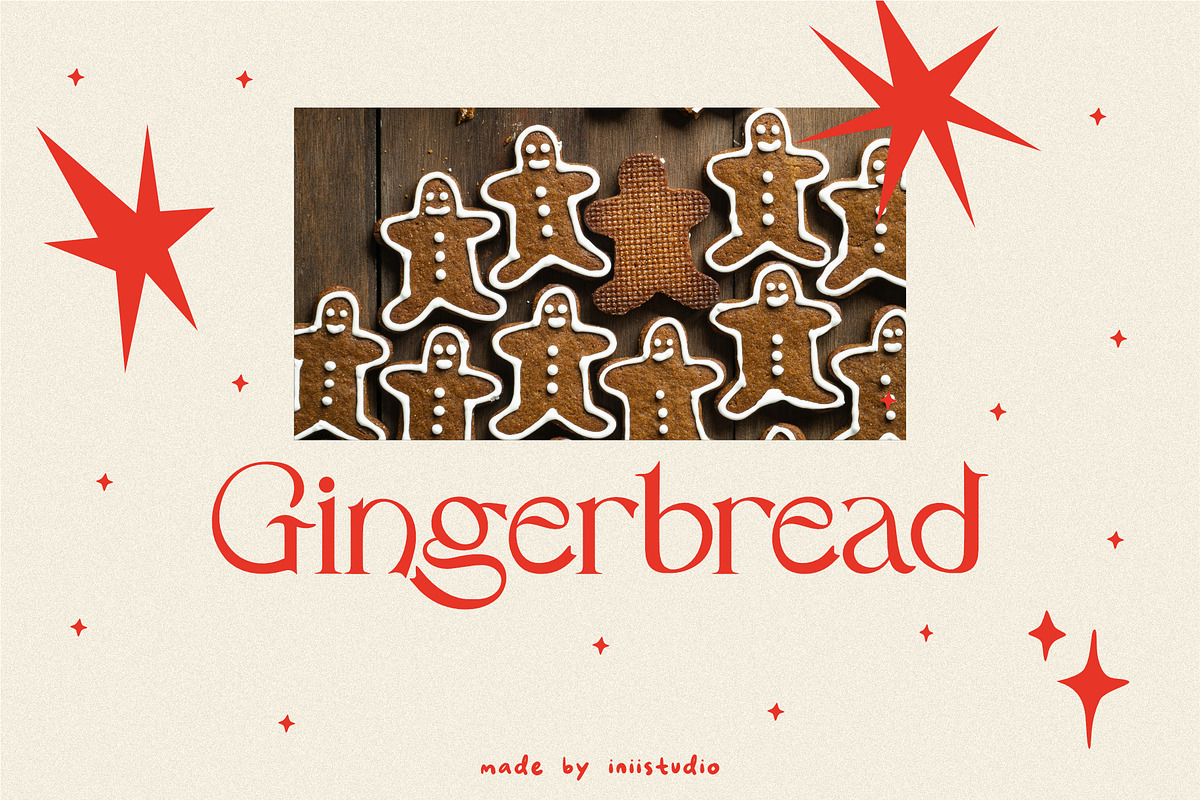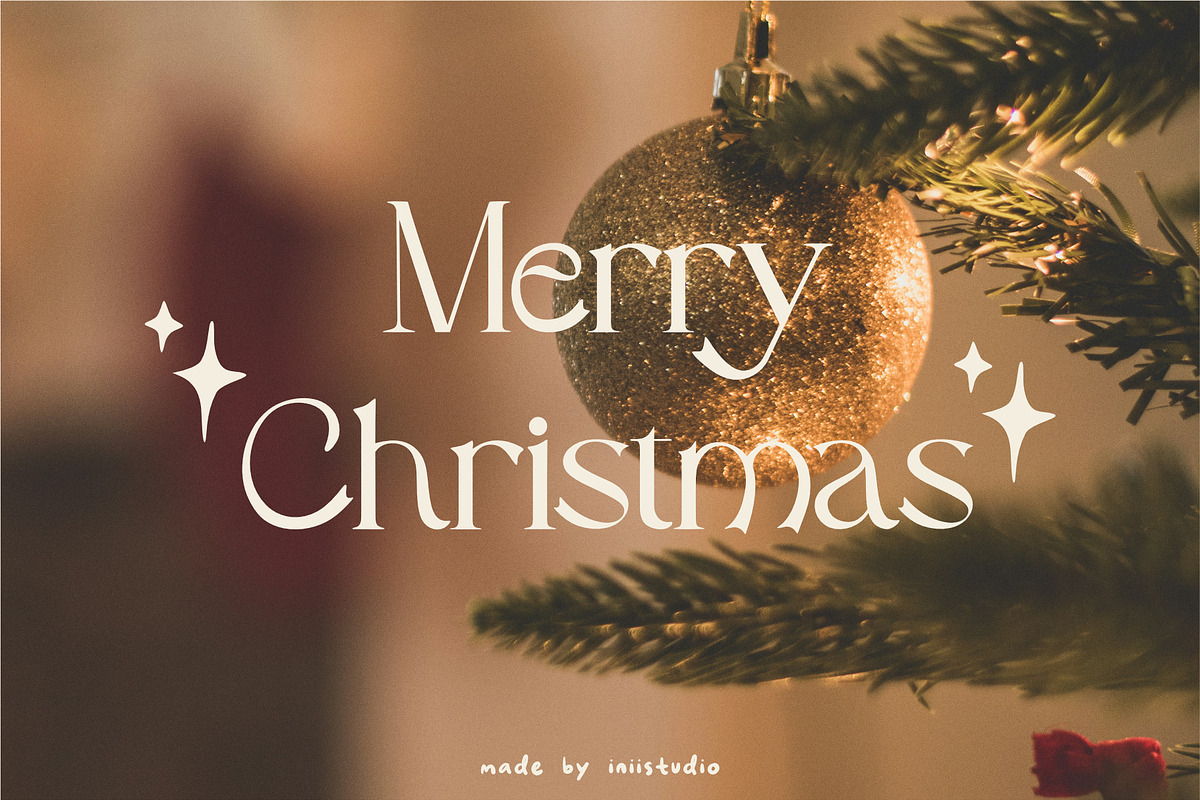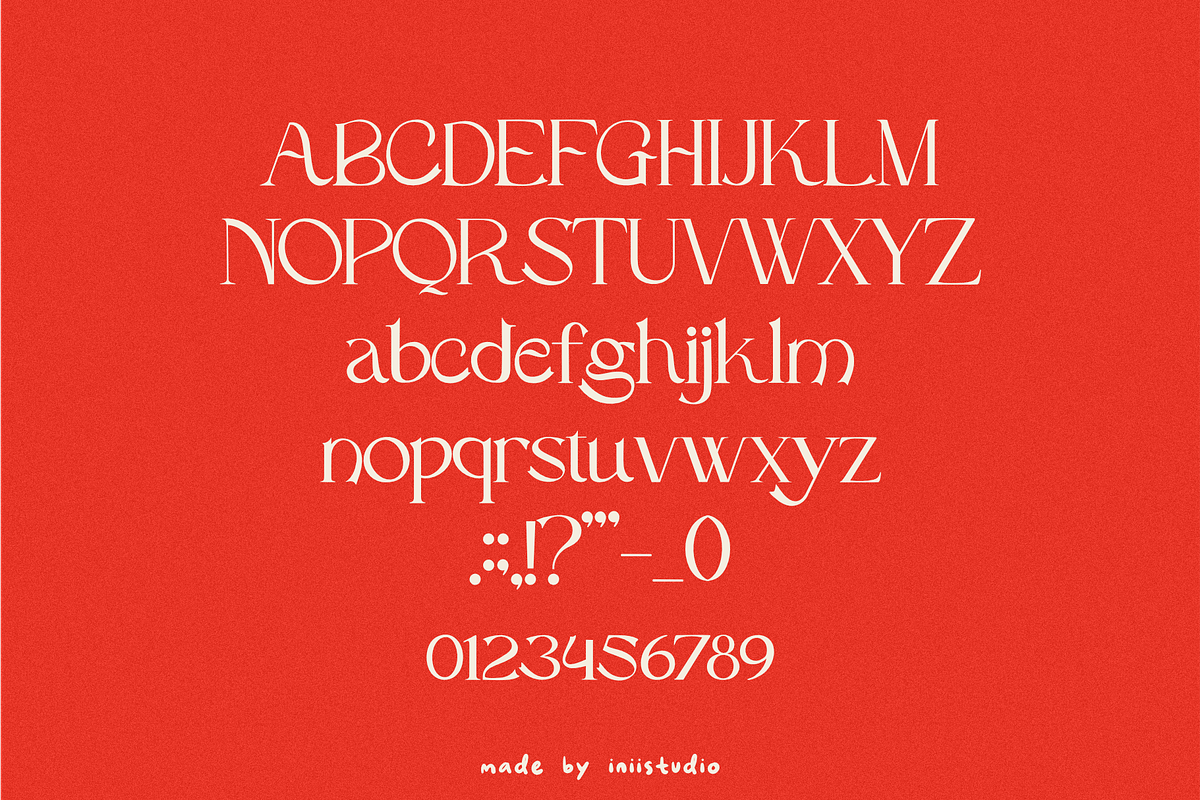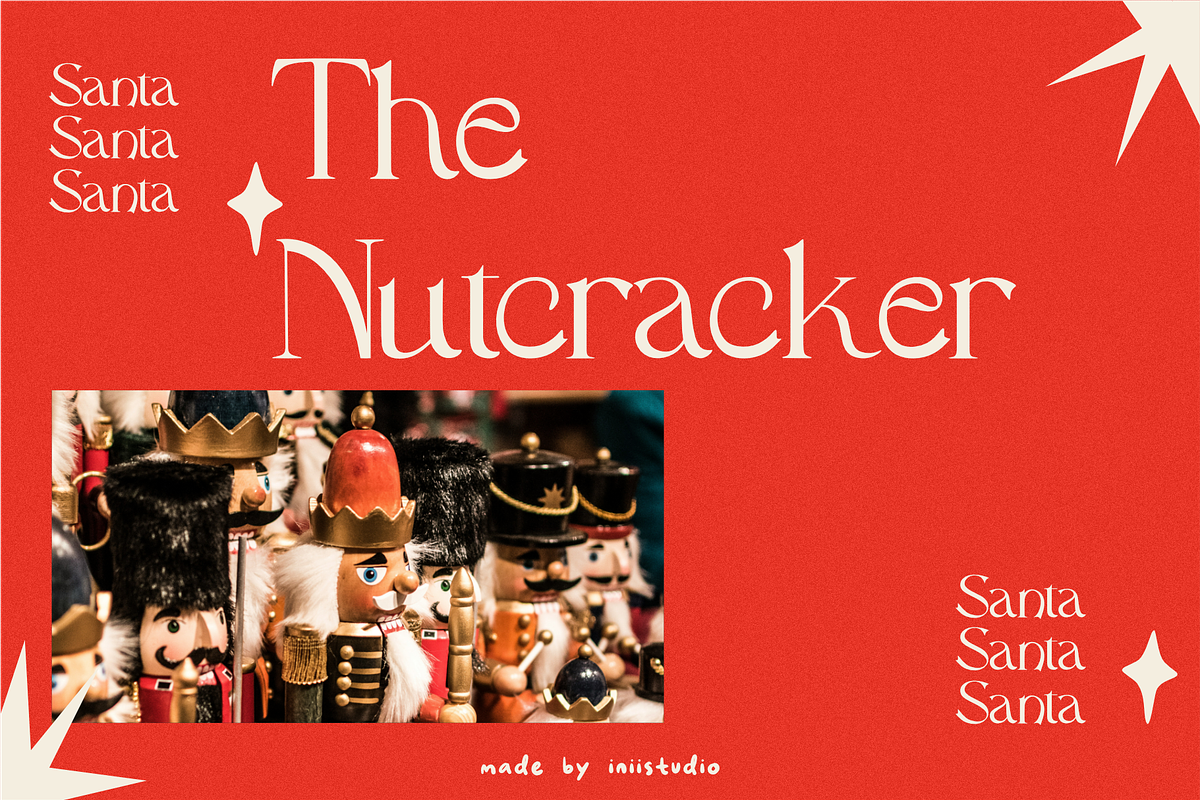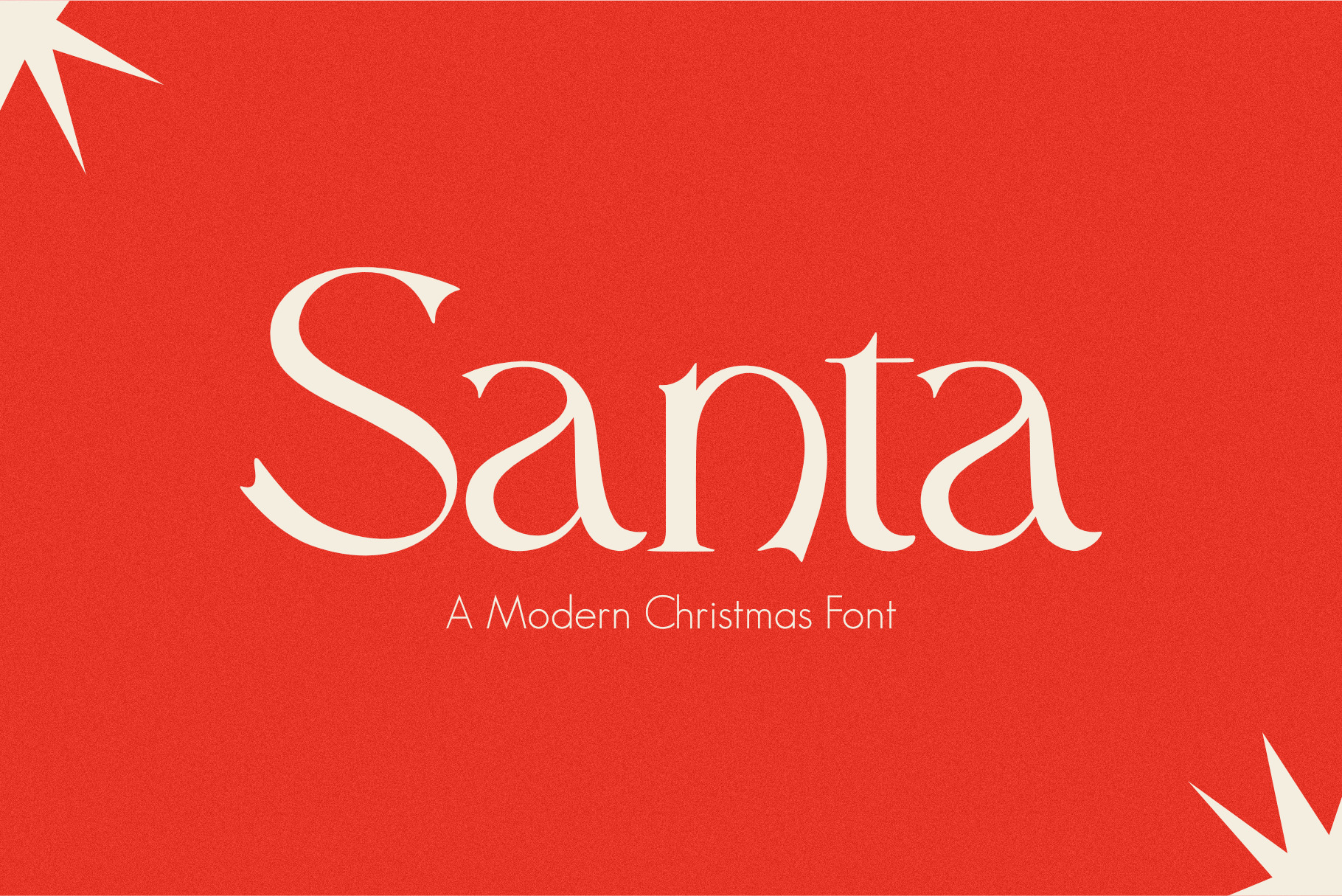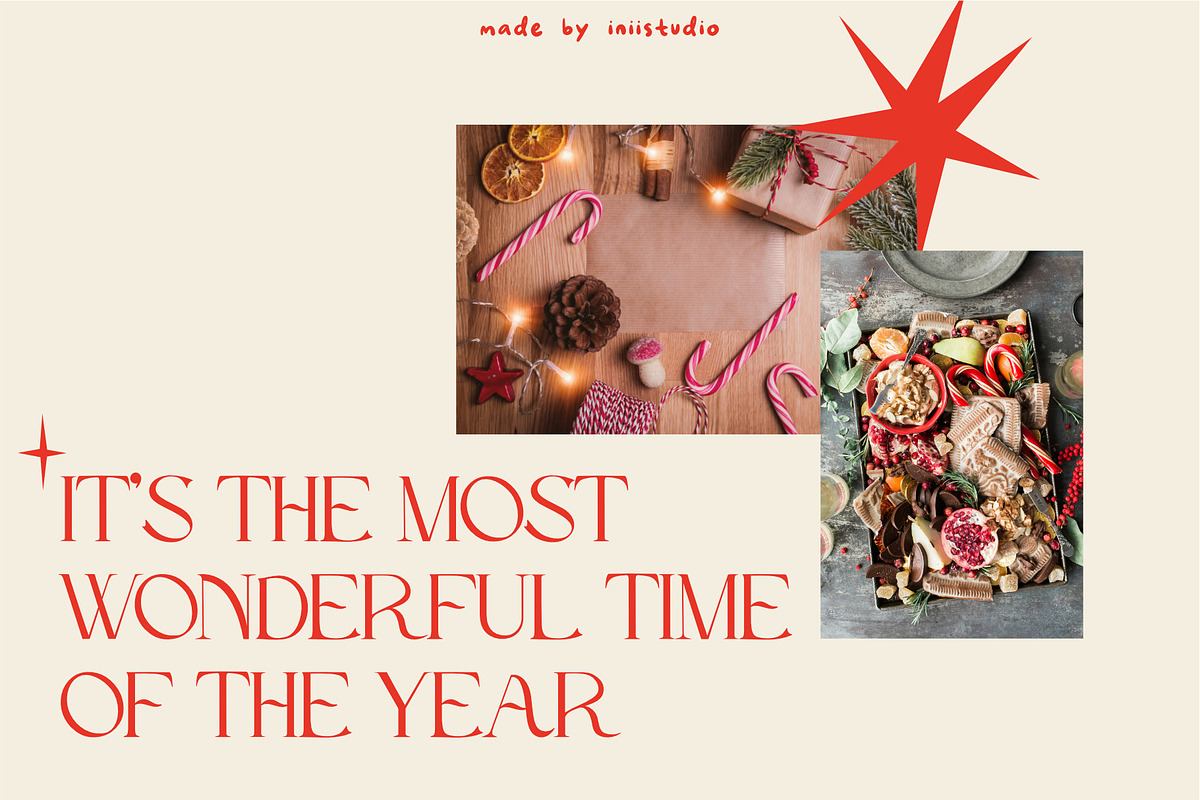
Santa - A Modern Christmas Font
Bring festive flair to your holiday projects with Santa, a modern Christmas font crafted for seasonal cheer.
Featuring clean, stylish lines with a playful holiday touch, this font is perfect for Christmas cards, gift tags, holiday invitations, and winter decor. Its versatile style brings warmth and sophistication to your seasonal designs, making it ideal for both digital and print projects. Get into the holiday spirit with Santa and make your Christmas designs merry and bright!